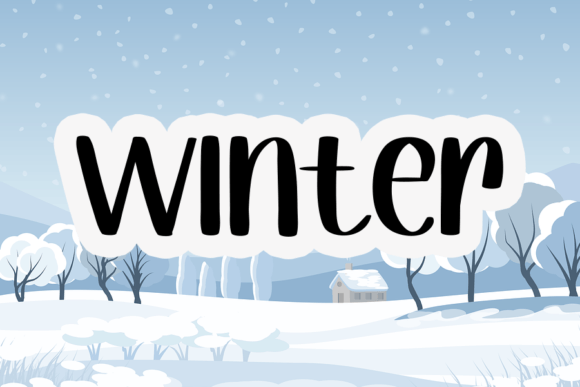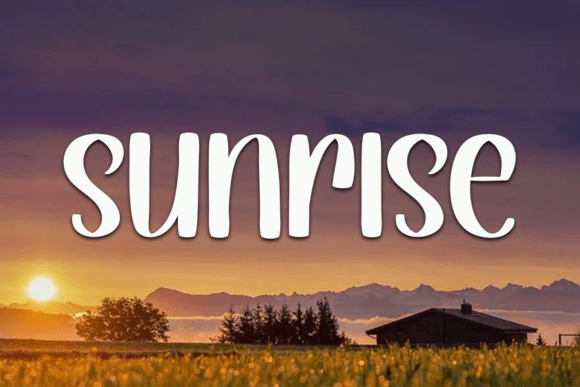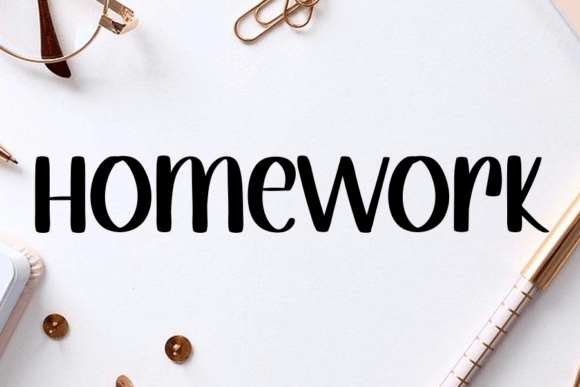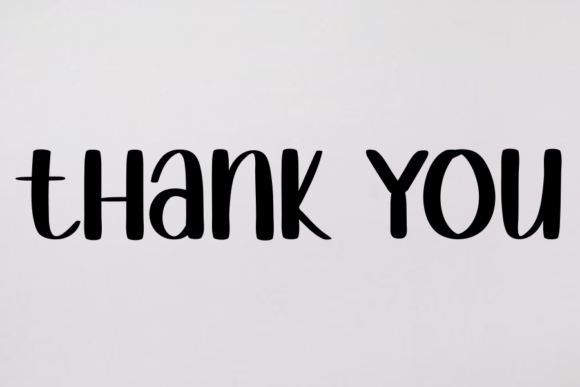
Introduction to House Font
Have you ever been working on a creative project, pouring your heart and soul into it, and then – BAM! – you stumble upon the perfect font to bring it all together? That’s exactly what happened to me when I discovered the House Font. This simple yet charming handwritten font has been a game-changer in my design process, and I’m excited to share it with you.
About the House Font
The House Font is a versatile design resource that can be used for everything from greeting cards to headlines. Its natural, handwritten feel makes it perfect for adding a touch of warmth and personality to your next project. With a high-quality design and transparent background, this font is sure to elevate your creative work. And the best part? It’s available for free download, making it an invaluable resource for designers on a budget.
Why You’ll Love the House Font
Whether you’re working on a personal project or a client assignment, the House Font is sure to become a trusted design companion. Its simplicity and versatility make it a valuable addition to any designer’s toolkit, and its high-quality design ensures that it will always look great on any project. So why not give it a try and see how the House Font can help take your creative work to the next level?
Key Features of House Font
- Unique characteristics include a modern, minimalist aesthetic and a versatile style suitable for various design applications
- Perfect for designers looking for a high-quality, easy-to-use font for their creative projects
Honest Review: House Font
As a designer, I’m always on the lookout for high-quality design resources that can elevate my creative projects. Recently, I had the chance to work with House Font, and I’m excited to share my honest review with you.
What works well with House Font is its clean and modern aesthetic, making it perfect for a variety of design projects. ✨ The font is highly versatile and can be used for both digital and print media. I also appreciated the transparent background, which made it easy to use in my designs without any fuss.
Some limitations I encountered with House Font were related to its limited character set and font styles. ⚠️ While it’s a great font for simple text, it may not be the best choice for complex designs or projects that require a wide range of characters and font styles.
Overall, I’m impressed with House Font and would definitely recommend it as a free download for designers. It’s a great addition to any design resource library, and I’ve already used it in several of my recent projects.
Here are some key features that make House Font stand out:
- High-quality design with a modern aesthetic
- Perfect for digital and print media
Tips for Getting the Most Out of House Font
Use House Font on a transparent background to create a clean and modern design. Experiment with different font sizes and colors to add visual interest to your project. You can also use House Font in combination with other design resources, such as graphics and images, to create a unique and eye-catching design.
House Font is a popular design resource for a variety of creative projects, including logos, brochures, and social media graphics. It’s also a great choice for presentations and documents, as it’s easy to read and understand. Whether you’re working on a free download or a paid project, House Font is a high-quality font that’s sure to impress.